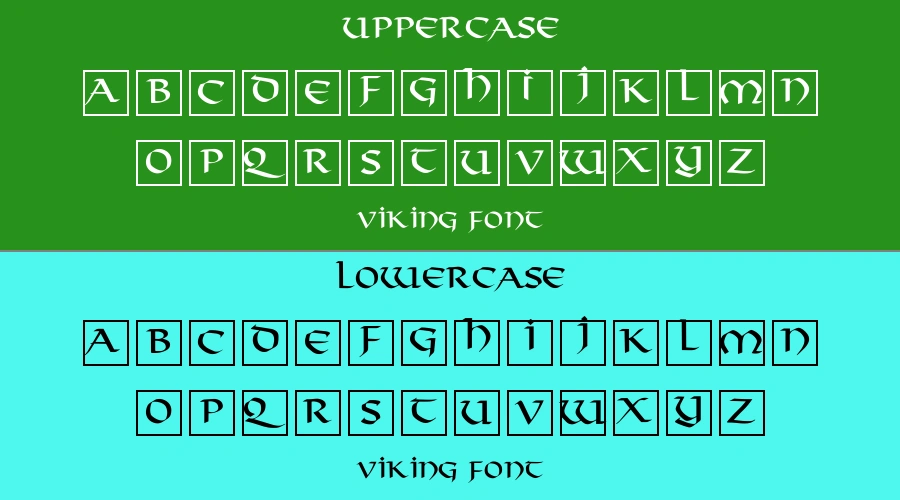
About Viking Font
Viking Normal Font represents a sophisticated approach to type design, balancing rhythmic patterns with market differentiation. Perfect for social media content, this font family showcases impressive versatility and craft excellence throughout its character set. Designers appreciate its versatility and reliability.
Designers will appreciate nuanced touches including clean lines and mid-word alternates, adding sophistication to any project. These features become apparent in artistic statements, where personality transfer matters most. The careful treatment of corner treatment and educational suitability ensures optimal performance.